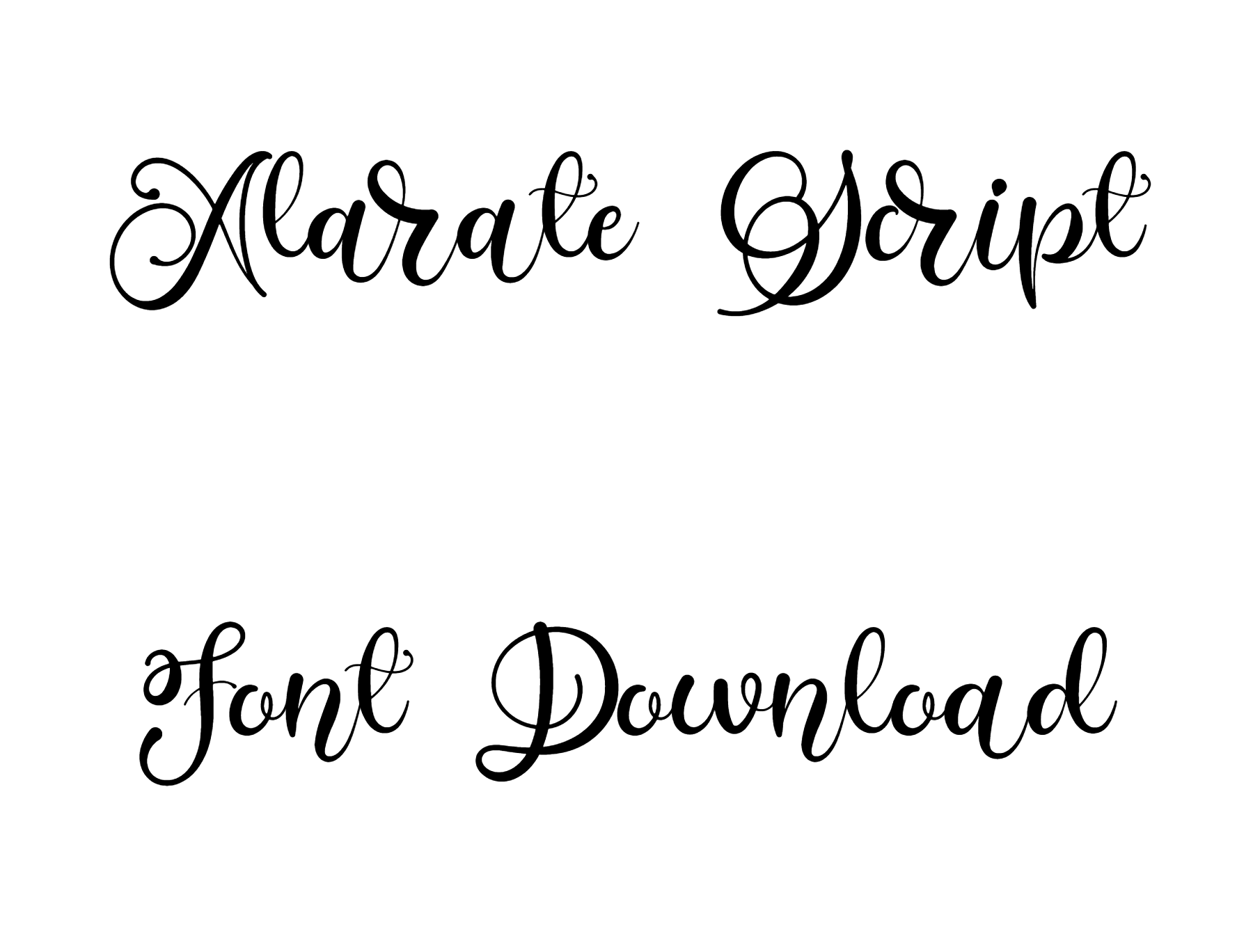
Alarate Script
Alarate Script Font Details
- Designer: Vava Aryanto
- Publisher: FallenGraphic
- Glyphs: 470
- OpenType features: Ligatures, contextual alternates, stylistic alternates and 12 stylistic sets
- Extra characters: 253 copy-and-paste alternates (Private Use Area)
What You Can Type With Alarate Script
With complete upper and lowercase letters and all ten digits, Alarate Script is ready for real wording, not just a single headline. Everyday marks like &, !, ? and @ are there too. Thanks to its accented letters, it also works for Spanish, French, German, Portuguese and Italian, not just English.
Where Alarate Script Works Best
Alarate Script is a natural fit for wedding invitations, certificates and elegant quotes. Its lowercase letters are small compared to the capitals, so set it a size or two bigger than usual. Script fonts read best in short bursts, so keep it to names, titles and one-line quotes. Skip all caps: script capitals are drawn to start a word, not to fill one.
Does Alarate Script support accented letters?
Yes. Alarate Script includes the accented letters needed for Spanish, French, German, Portuguese and Italian, so it works for more than just English.